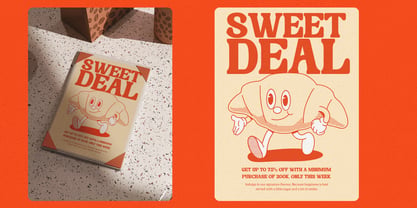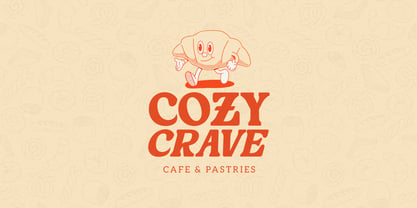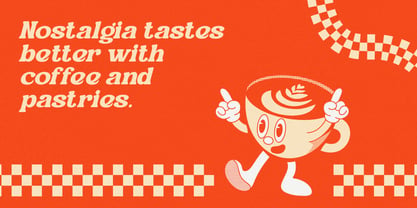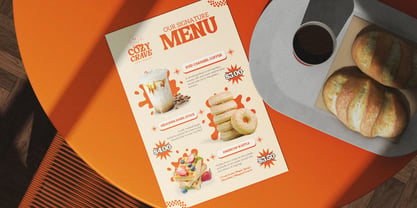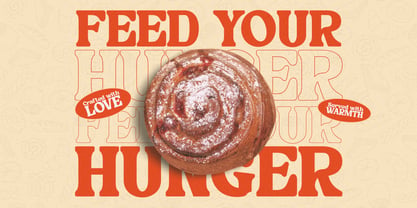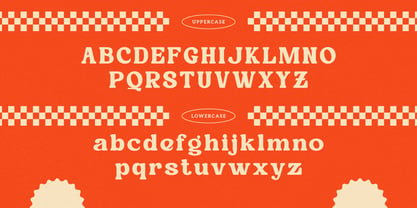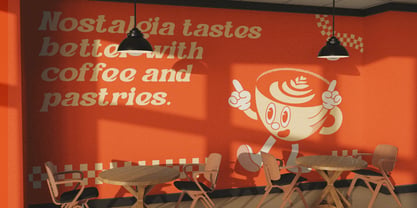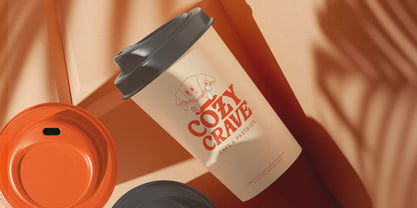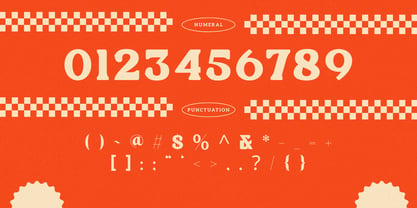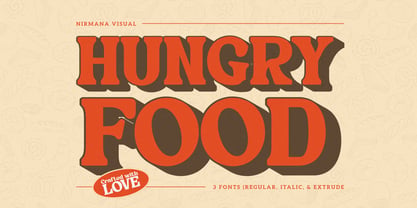
Hungry Food
by Nirmana Visual
The Hungry Food Font Family was designed by Sigit Dwipa and published by Nirmana Visual. Hungry Food contains 3 styles and family package options. More about this family
Hungry Food is a bold, extruded, and italic display font crafted specifically for food branding. With its dynamic 3D effect and playful slant, it instantly grabs attention, making it perfect for restaurant logos, café signage, menu headings, and packaging. Its vibrant and energetic style brings a sense of appetite and fun, ensuring your food brand stands out in a crowded market.